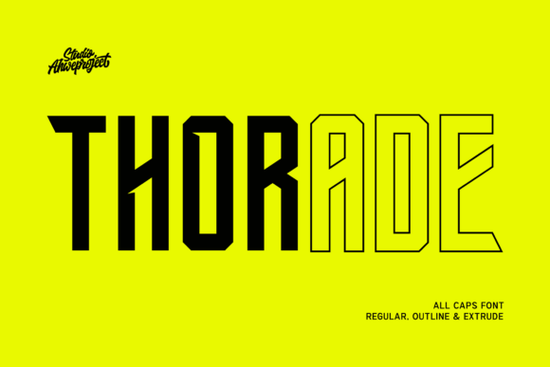
When you need a typeface that immediately grabs attention for a sports logo or streetwear brand, the Thorade Font is a solid choice. Built specifically for high-impact headlines, this all-caps display font uses strong geometric shapes and sharp angles to give your projects a confident, athletic look. Typography often sets the mood before the customer even reads the words. Whether you are designing esports graphics or bold social media posts, having a reliable sports-inspired typeface in your toolkit makes a big difference in how your audience perceives your brand.
What makes this typeface stand out for sports and streetwear?
The design relies on structured letterforms and aggressive cuts that naturally convey strength and energy. Unlike softer scripts or delicate serifs, this font demands to be read. It is perfect for situations where your message needs high visibility, like a main banner on a website or the front of a merchandise shirt. If you want to see the full character set for this specific typeface, checking out the main product page gives you a clear view of how the letters interact with each other.
How can I use the different styles in my projects?
You get three distinct variations in your download: Regular, Outline, and Extrude. This variety is incredibly useful when you want to create layered effects without having to manually stroke your text in design software. While you might use a softer sans serif option for your body text, keeping your headlines sharp with these bold variations creates a great visual contrast. You can also pair it with a clean secondary font when you need a highly readable subtitle that doesn't compete with your main headline.
Is it suitable for print-on-demand and small business branding?
Absolutely. Print-on-demand sellers often struggle to find typography that looks professional on apparel without looking cluttered. The clean geometric structure of this font ensures it prints well on t-shirts, hoodies, and posters. Bold fonts also reduce the need for complex graphic illustrations, saving you valuable design time. Small businesses in the fitness, gaming, or urban fashion sectors will find it particularly useful for building a cohesive visual identity. If you are looking to explore more options in this niche, you can browse for Thorade Font on the marketplace to see related athletic styles.
What are some quick tips for layering the outline and extrude versions?
Layering text can sometimes make a design look messy if you aren't careful. Here is how to keep it clean and professional:
- Start with the Extrude version as your bottom layer to create a solid 3D shadow effect.
- Place the Outline version directly on top to add a crisp border that separates the text from the background.
- Use the Regular version for the top layer to ensure the core message remains highly readable.
If you are working on a project that needs a slightly more approachable feel alongside your aggressive headlines, mixing in a softer typeface can balance the overall layout. For lifestyle brands that want to mix athletic energy with a cheerful, morning vibe, combining these contrasting styles works surprisingly well and keeps the design from feeling too heavy.
How do I prepare the files for commercial merchandise?
Quick Checklist for Your Next Design
- Verify that your background color provides enough contrast for the sharp angles of the letters.
- Test the Outline version at a smaller size to ensure the inner space doesn't fill in when printed on dark fabrics.
- Adjust the tracking if you are using the font for a short, punchy phrase rather than a long headline.
- Save your final layered file so you can easily swap out the Extrude or Outline versions later if the client wants a different look.